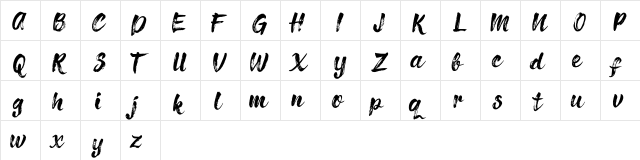
Richie Brusher Richie Brusher
Design Context for Richie Brusher Typeface
Richie Brusher flows with the natural rhythm of handwritten lettering, making it ideal for designs that call for warmth and personal expression.
Font Pairing: Combine Richie Brusher with a simple geometric sans for maximum contrast — the tension between flowing curves and clean structure is a classic typographic pairing.
Pro Tip: Use Richie Brusher for short runs of text — names, titles, or taglines. Extended body copy in script faces tires the eye quickly.